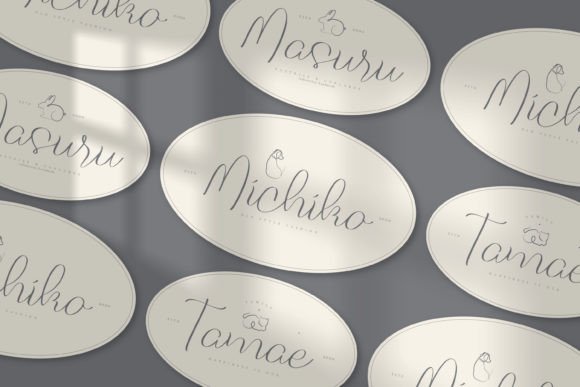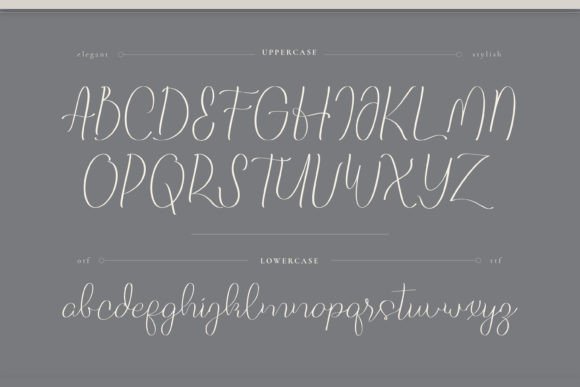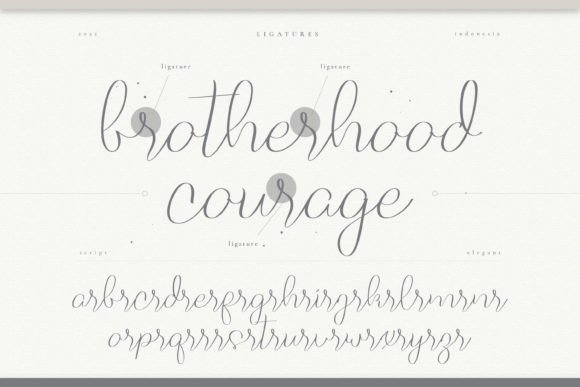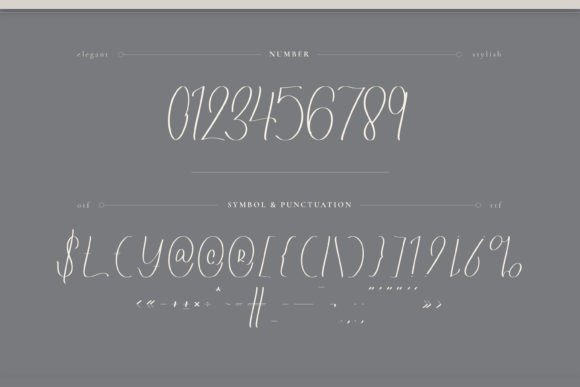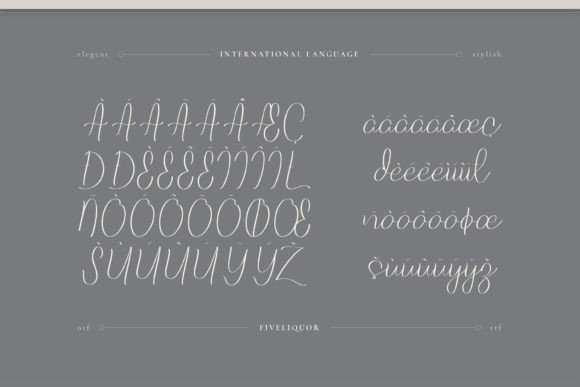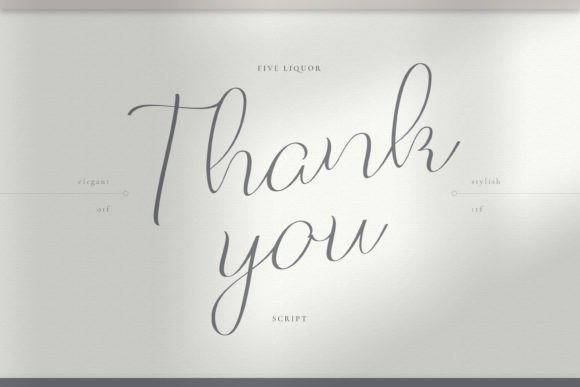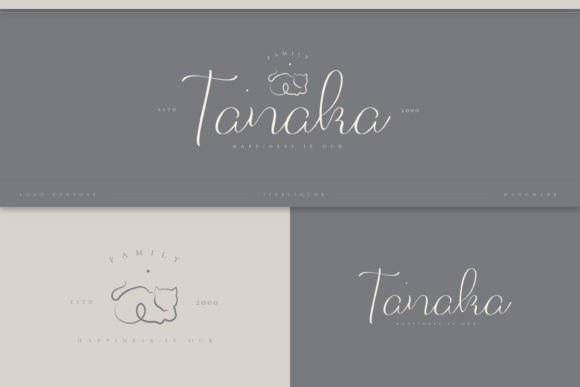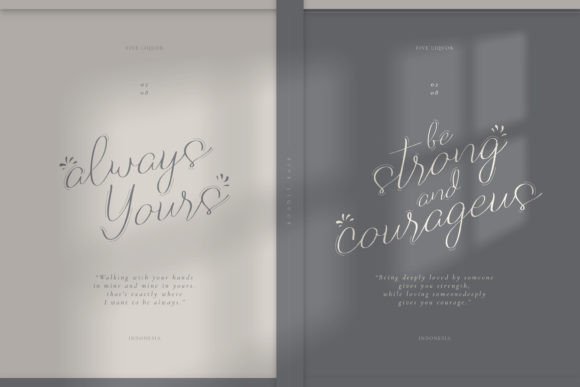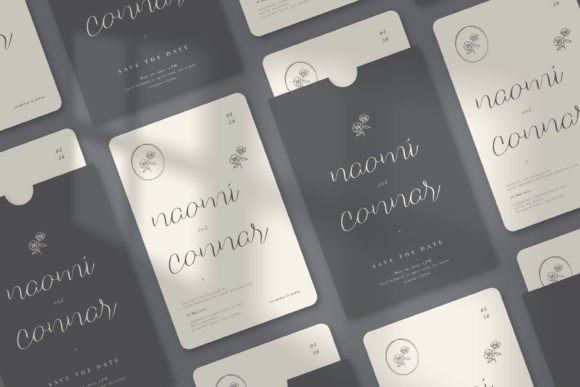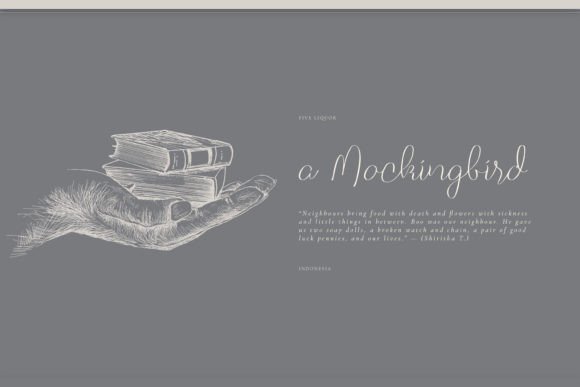
Five Liquor Font
Introducing Five Liquor, an exquisite handwritten font that has been masterfully designed to become a true favorite. Combining classy calligraphic influences with a contemporary and fresh feel, Five Liquor is a font that invites you to fall in love with it and elevate your projects to the highest levels of sophistication.
What sets Five Liquor apart is its balance between classic calligraphy and modernity. The font maintains a sense of timeless elegance, making it suitable for a range of applications where you want to convey a touch of class. Imagine Five Liquor gracing your high-end branding materials, creating a visual identity that exudes sophistication and refinement.
The exquisite nature of Five Liquor makes it perfect for projects that demand a touch of luxury. Whether used in invitations, signage, or any design that requires an element of refined elegance, Five Liquor becomes the key ingredient that elevates your creations to new heights.
Picture Five Liquor enhancing your wedding invitations, setting the tone for a celebration that is both timeless and modern. Envision it in luxury branding, becoming the signature font that communicates a sense of exclusivity. Its versatility allows it to adapt seamlessly to various design contexts, bringing a touch of elevated style wherever it is used.
In conclusion, Five Liquor is not just a font; it’s an exquisite design element that adds sophistication and freshness to your projects. Download it today and experience how it transforms your branding, invitations, and more into expressions of timeless elegance. Make Five Liquor your font of choice for projects that demand the highest levels of refinement, and let it be the key to creating designs that stand out with grace and sophistication!